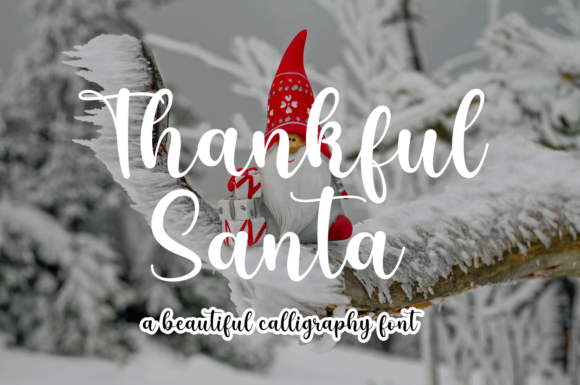
Within the realm of typography, where creativity intertwines with communication, a script font emerges, not merely as a collection of letters, but as an enchanting journey into a world of elegance, nostalgia, and boundless expression. Allow us to introduce you to Thankful Santa Font, a script font poised to elevate your designs to new heights.
Thankful Santa Font is a dance of characters, fluidly gliding along the baseline, carrying a rich tale within each stroke. Its captivating allure lies in its ability to evoke a sense of timeless charm and heartfelt warmth. Whether you seek to create whimsical invitations, heartfelt letters, or captivating branding, Thankful Santa Font stands ready to transform your vision into an unforgettable symphony of style.
Step into a realm where Thankful Santa Font reigns supreme, a realm where your words take on an elegant persona, where your designs radiate a touch of timeless charm. This script font holds the power to captivate, to evoke emotions, to transport your audience to a bygone era of grace and refinement.
As a PUA-encoded font, Thankful Santa Font opens the door to a world of creative possibilities. With ease and delight, you'll unlock a treasure trove of glyphs and ligatures, each an artistic gem waiting to adorn your creations. Unleash your imagination and let Thankful Santa Font guide you toward design masterpieces that resonate with your audience.
Take a moment to envision your next design project, adorned with the exquisite grace of Thankful Santa Font. Picture wedding invitations that whisper of romance, logos that exude a touch of nostalgia, or social media posts that capture the essence of timeless elegance. The possibilities are limitless, bound only by the depths of your creativity.
In a world saturated with digital noise, it's the distinctive and memorable that truly stands out. Thankful Santa Font is your key to creating a lasting impression, a font that transforms your designs into cherished heirlooms, passed down through generations.